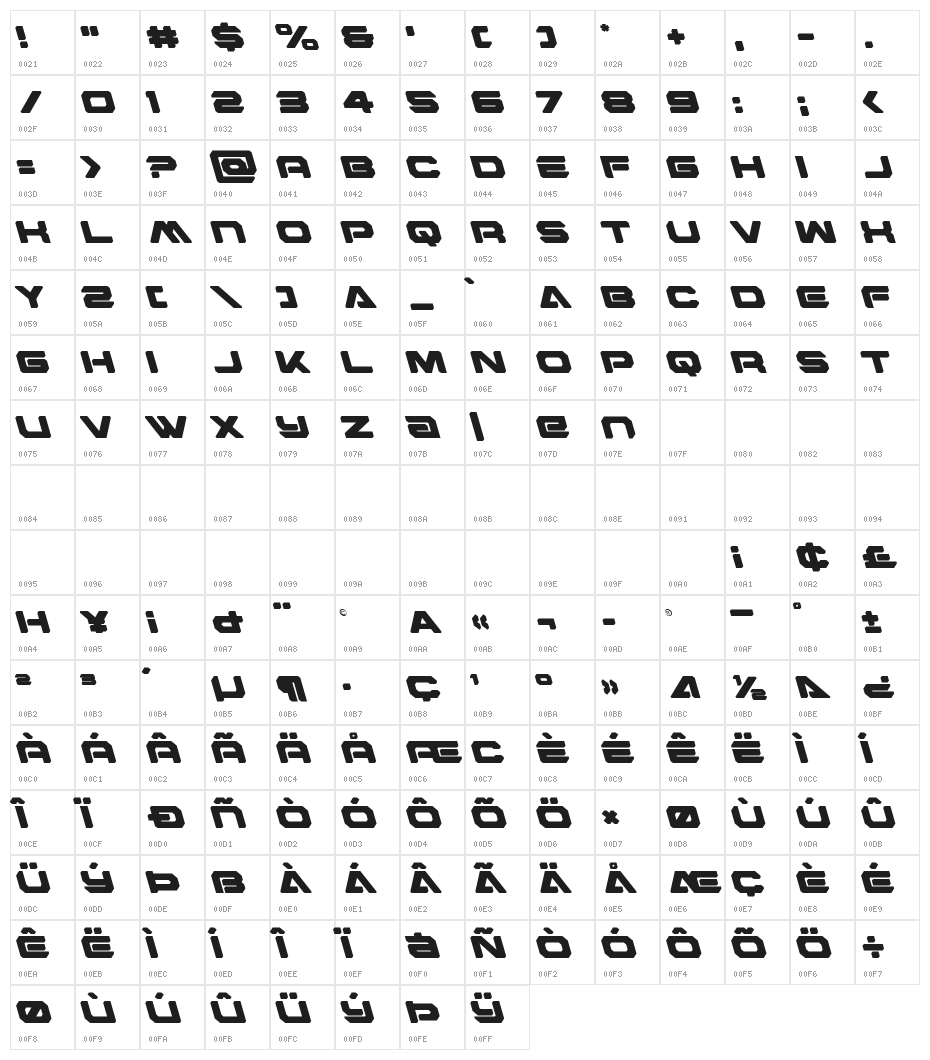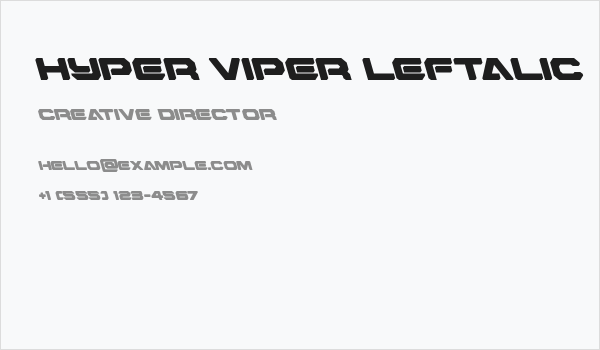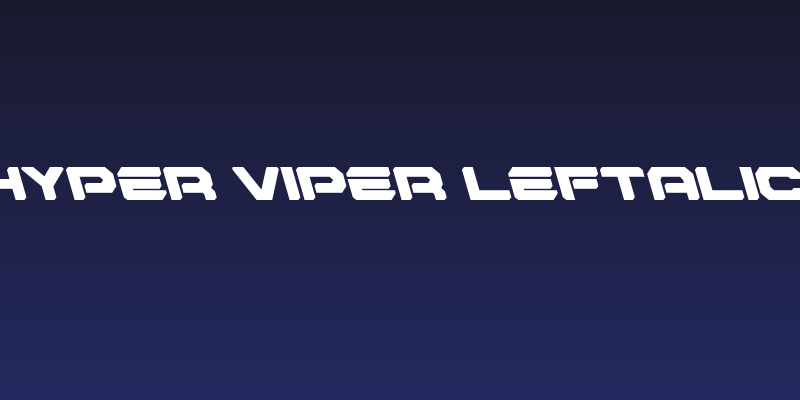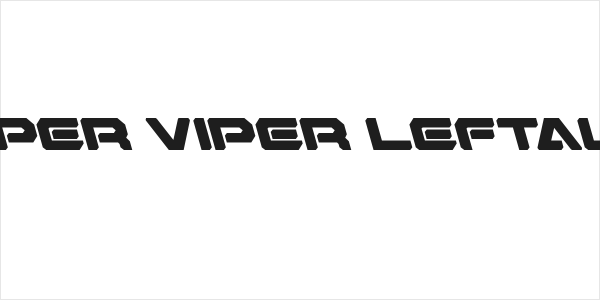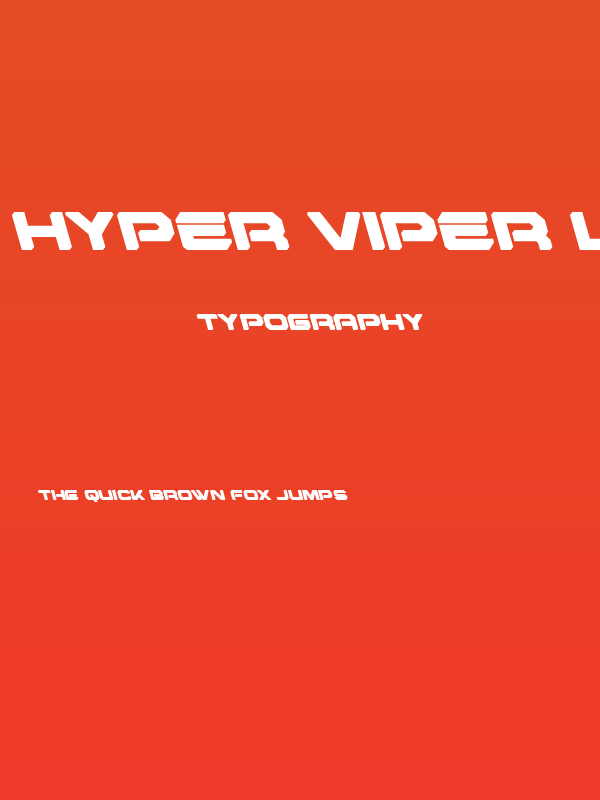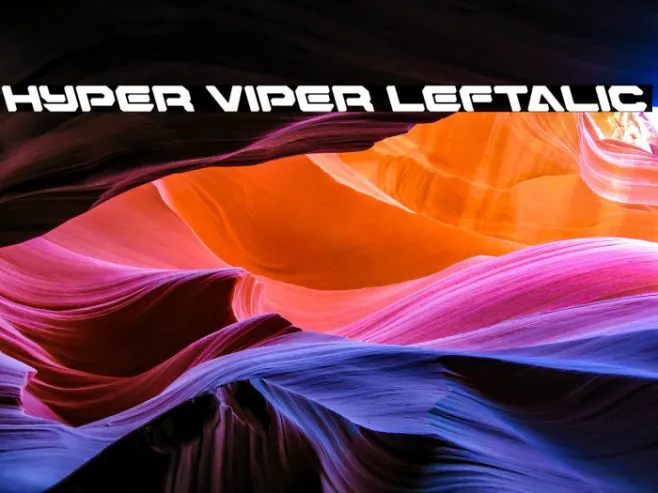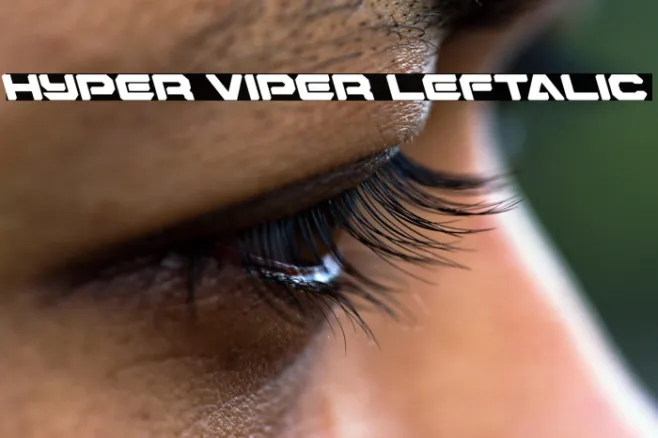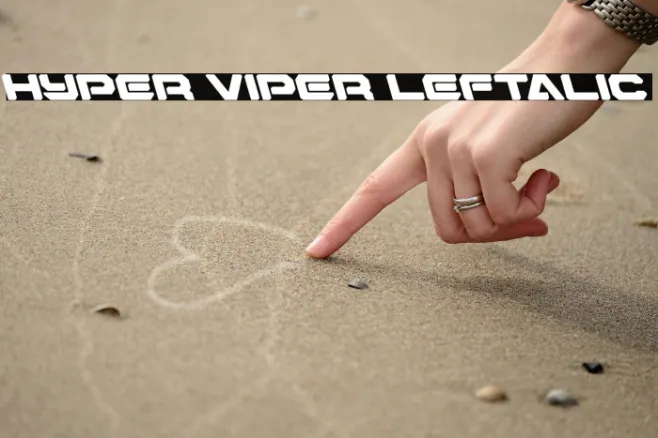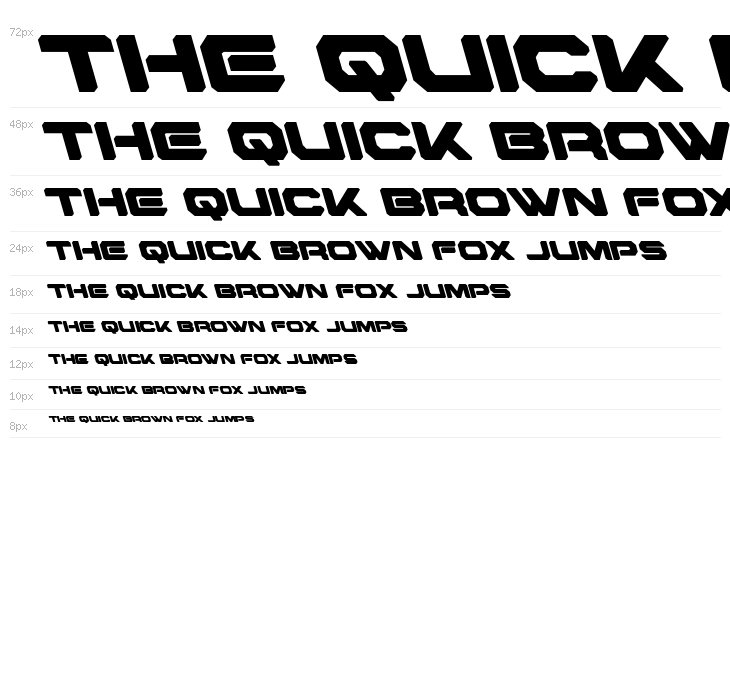
Hyper Viper Leftalic Font
Hyper Viper Leftalic Description
This font features a bold, futuristic design with angular, geometric shapes. The characters are slightly italicized, giving a dynamic and forward-moving appearance. The uppercase letters are distinct with sharp edges and a blocky structure, while the lowercase letters maintain the same angular style. The numbers and special characters follow the same design principles, ensuring consistency across all glyphs. The font's boldness and unique style make it stand out, suitable for projects that require a modern and edgy look.
| Proposed Projects | Ideal for sci-fi themed designs, video game graphics, technology branding, and modern advertising campaigns. |